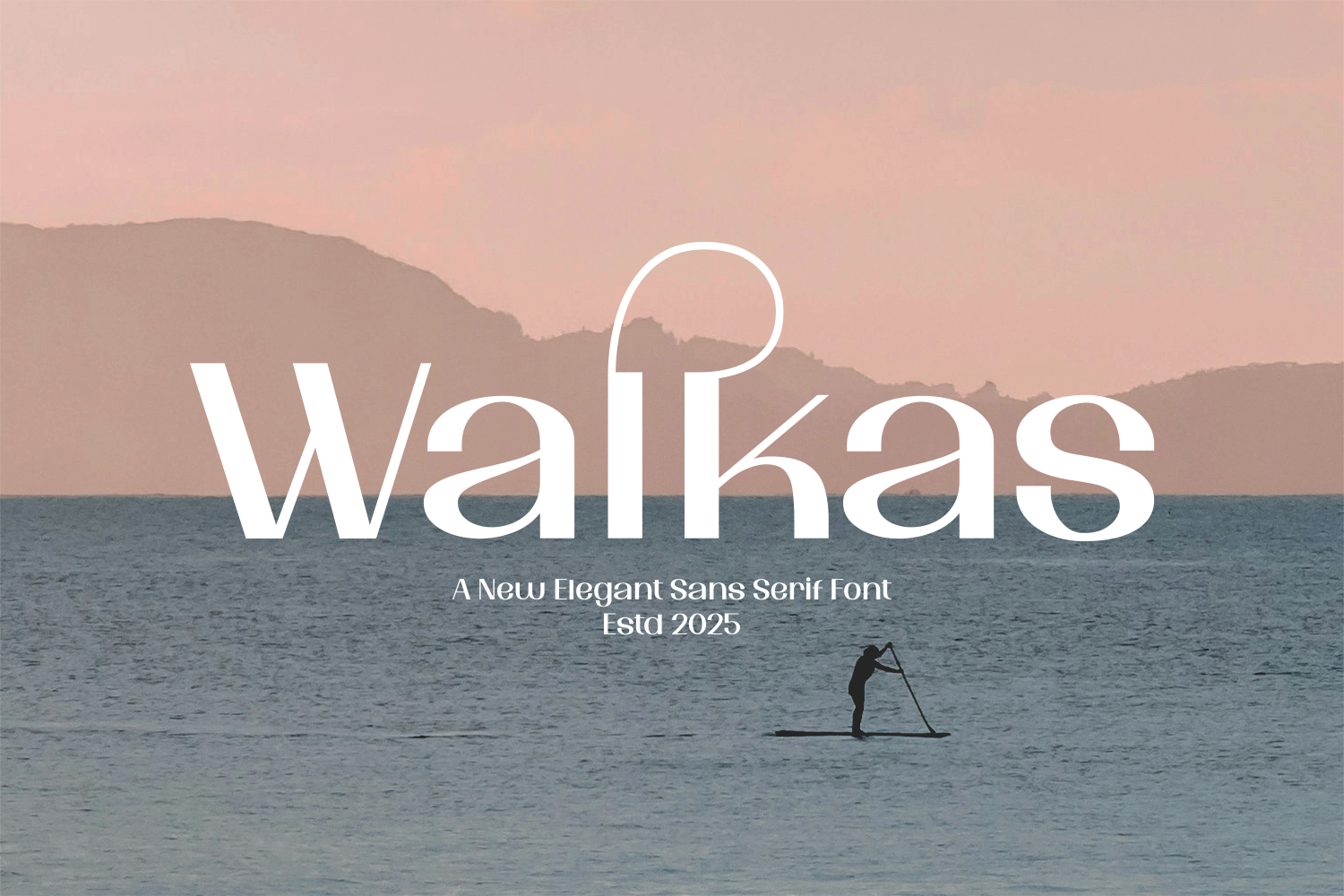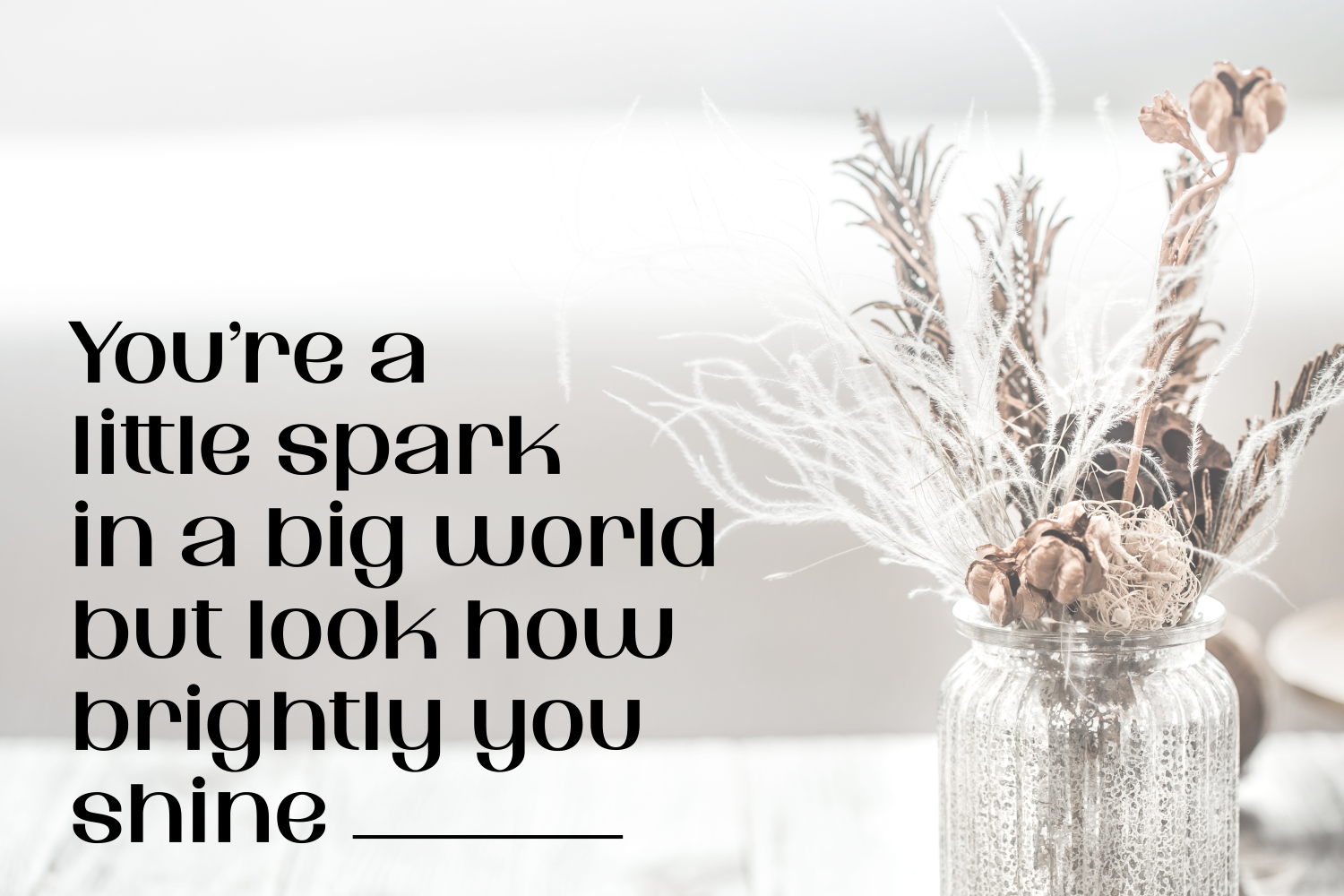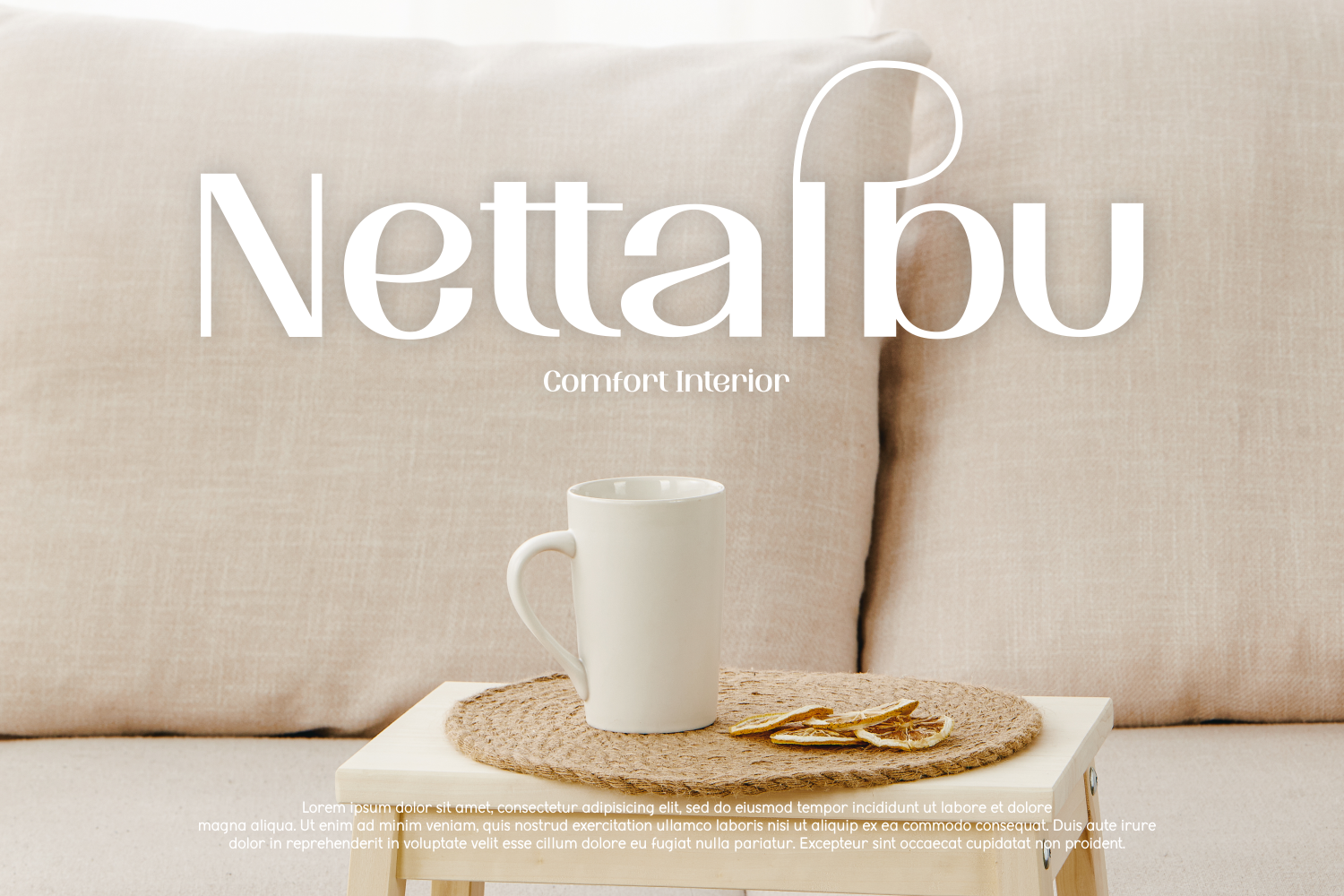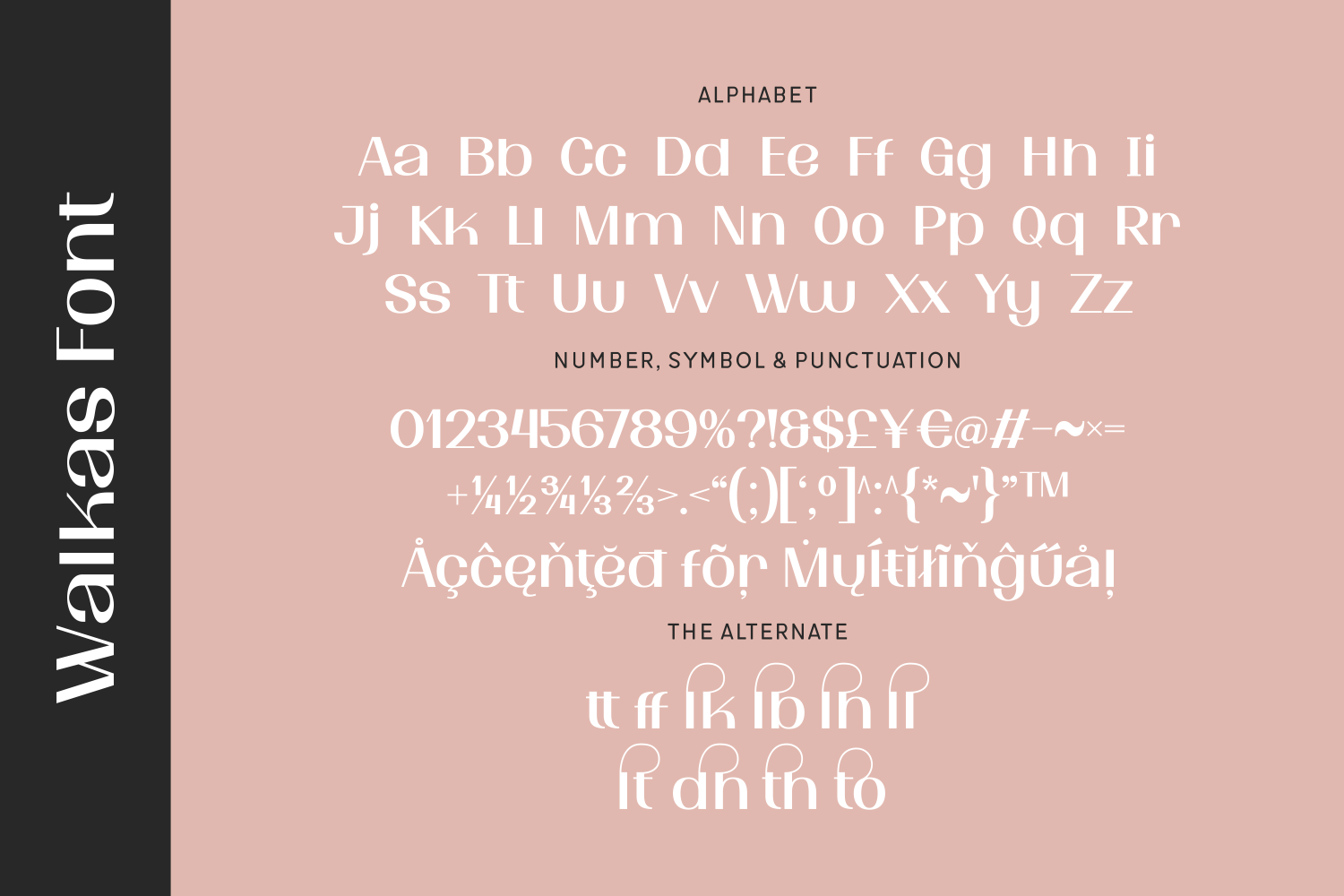
Walkas is a refined sans serif typeface featuring graceful strokes and unique ligatures. Its elegant flow is perfect for lifestyle brands, travel magazines, and high-end packaging seeking a modern yet artistic touch.